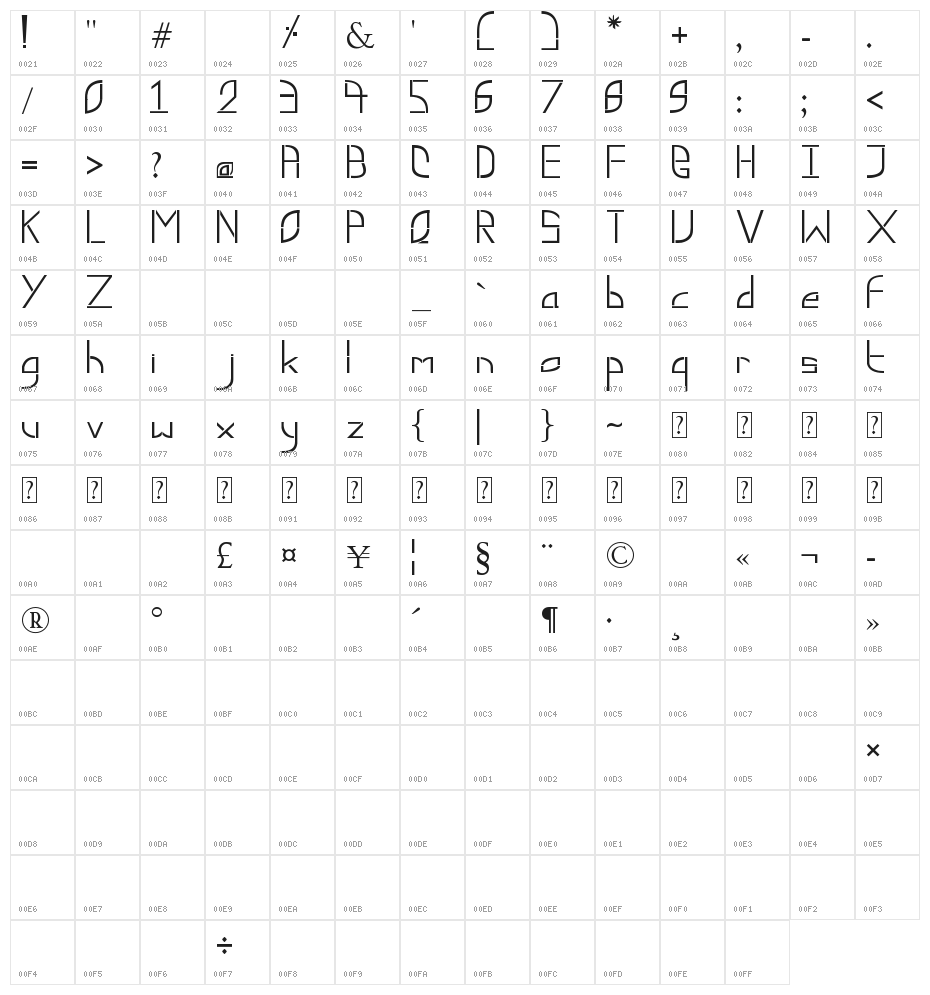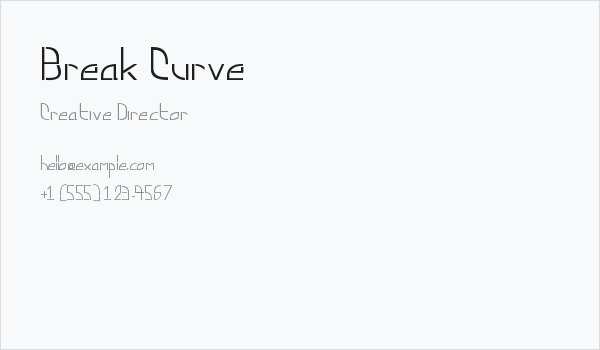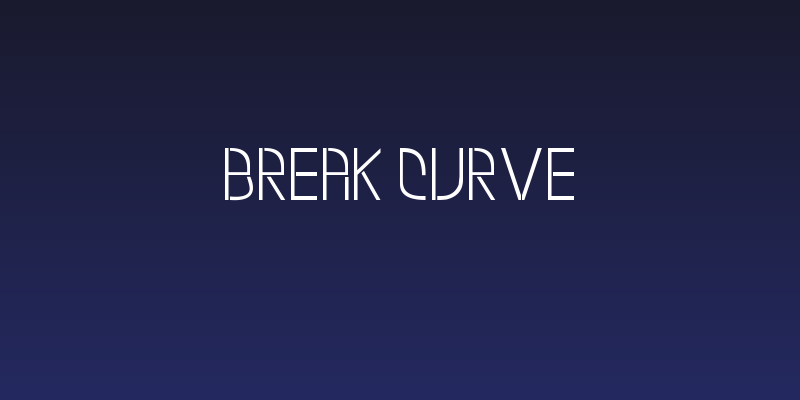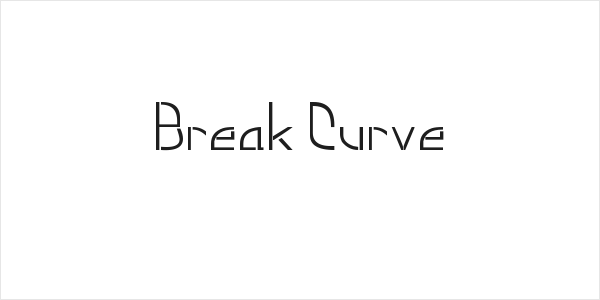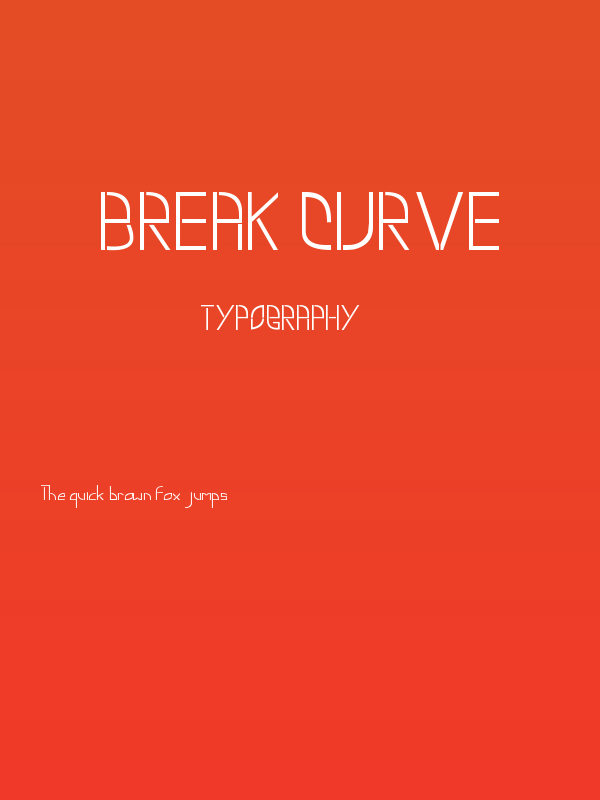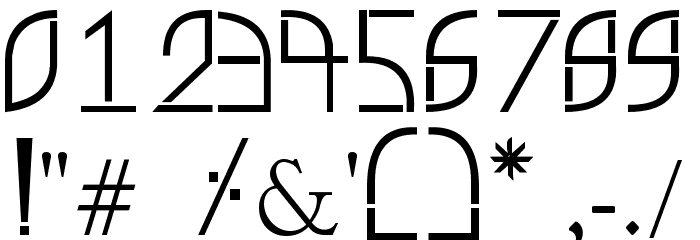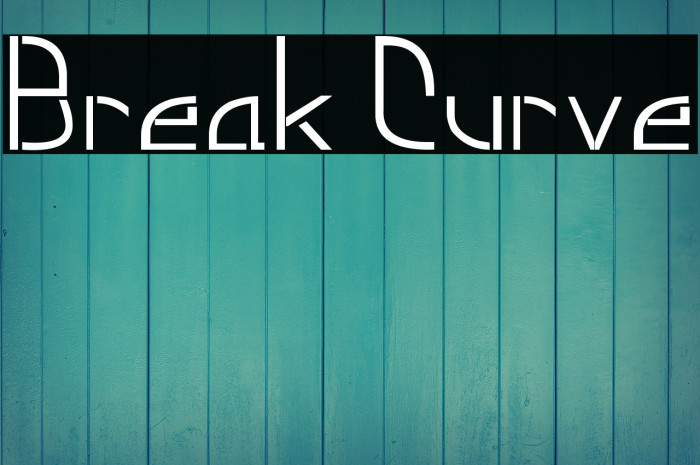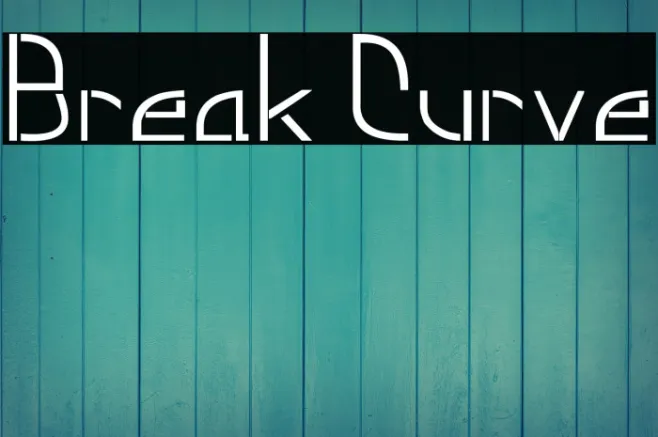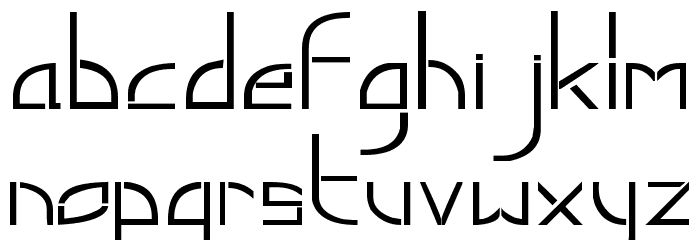
Break Curve Font
Break Curve Description
This font features a modern and geometric design with a unique blend of straight lines and curves. The uppercase letters are characterized by their sharp angles and clean lines, creating a futuristic and technical appearance. The lowercase letters maintain a similar style but with slightly softer curves, providing a balanced contrast. The numerals are distinct and easily readable, following the same geometric principles. Special characters are designed to match the overall aesthetic, ensuring consistency across all glyphs. This font's style is ideal for projects that require a contemporary and innovative look.